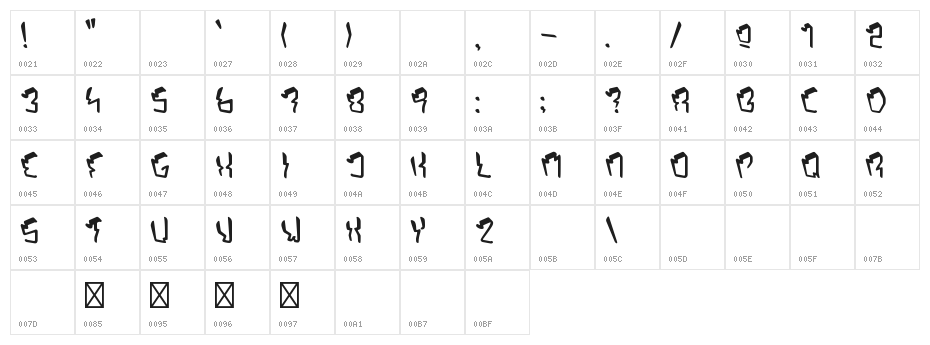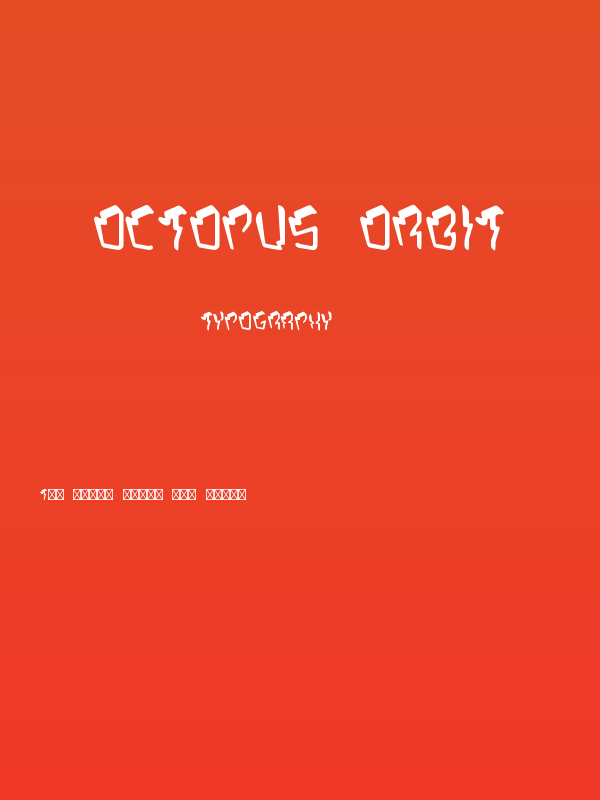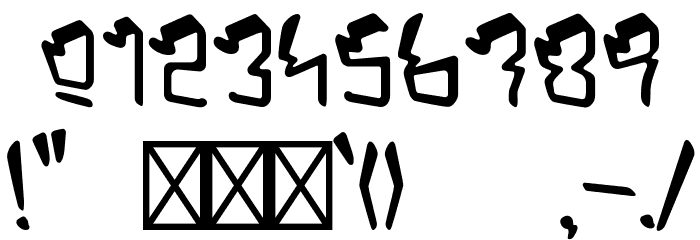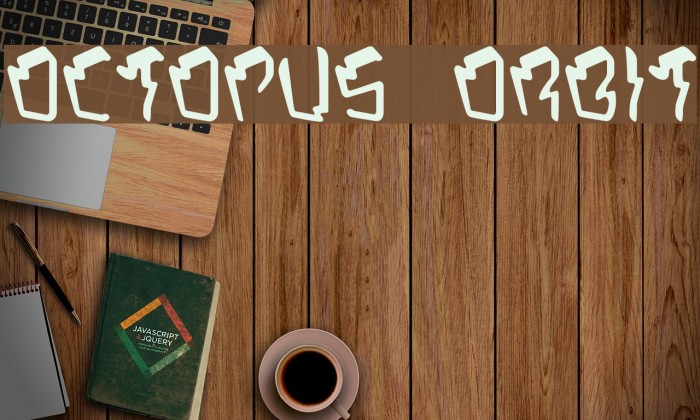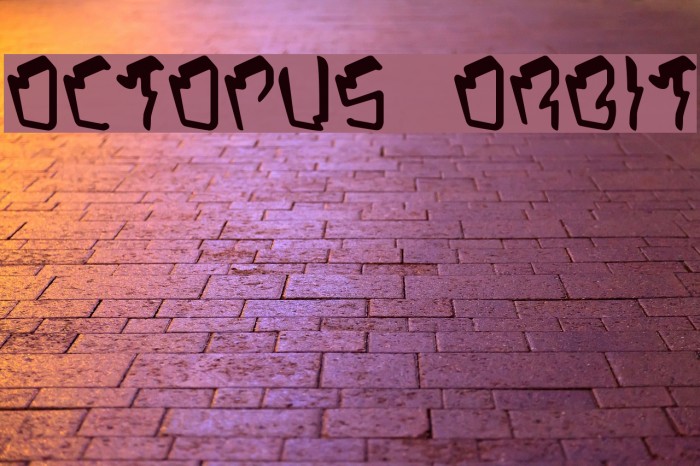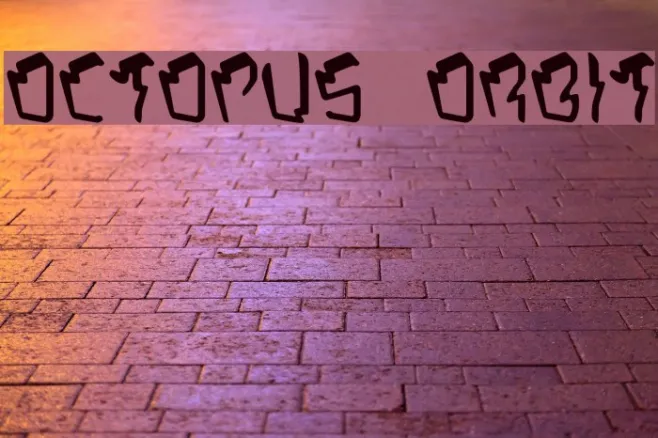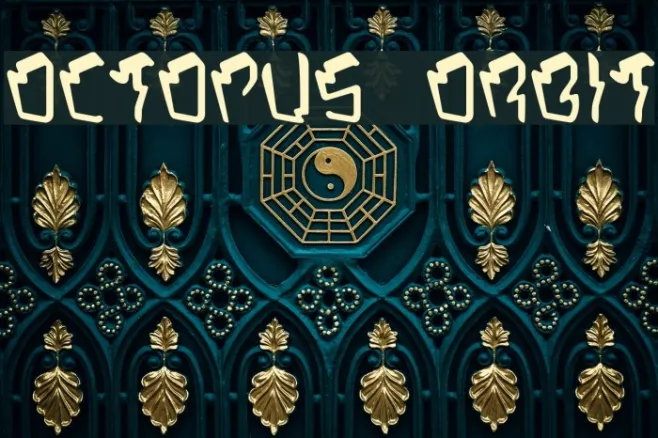
OCTOPUS ORBIT Font
OCTOPUS ORBIT Description
This font features a unique, futuristic design with angular and geometric shapes that give it a distinct, edgy appearance. The characters are constructed with bold, sharp lines and irregular angles, creating a sense of movement and dynamism. The uppercase letters exhibit a consistent height and width, while the lowercase letters maintain the same angular style, ensuring visual harmony. Numbers follow the same design principles, making them easily recognizable yet stylistically consistent with the alphabet. The special characters are crafted with the same attention to detail, providing a cohesive look across all glyphs. This font is ideal for projects that require a modern, unconventional aesthetic, such as science fiction themes, video game titles, or tech-related branding.
| Proposed Projects | Ideal for science fiction themes, video game titles, tech branding, and modern posters. |